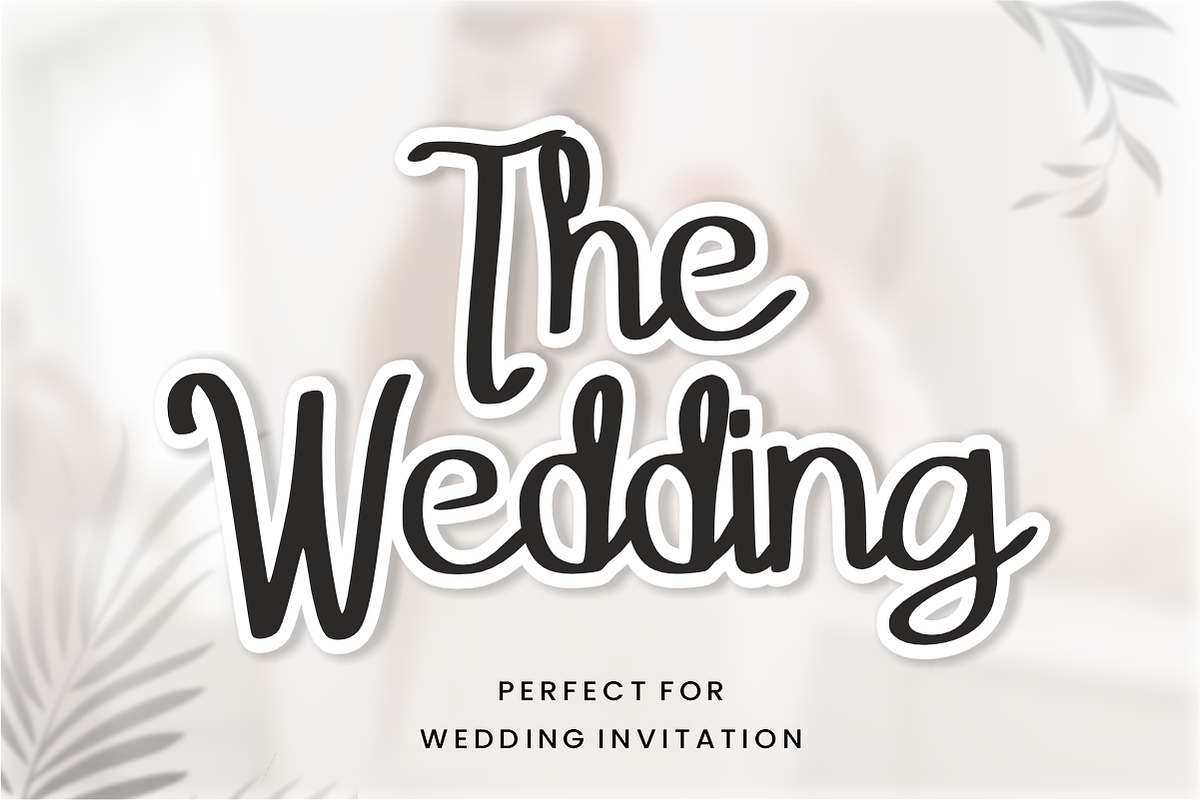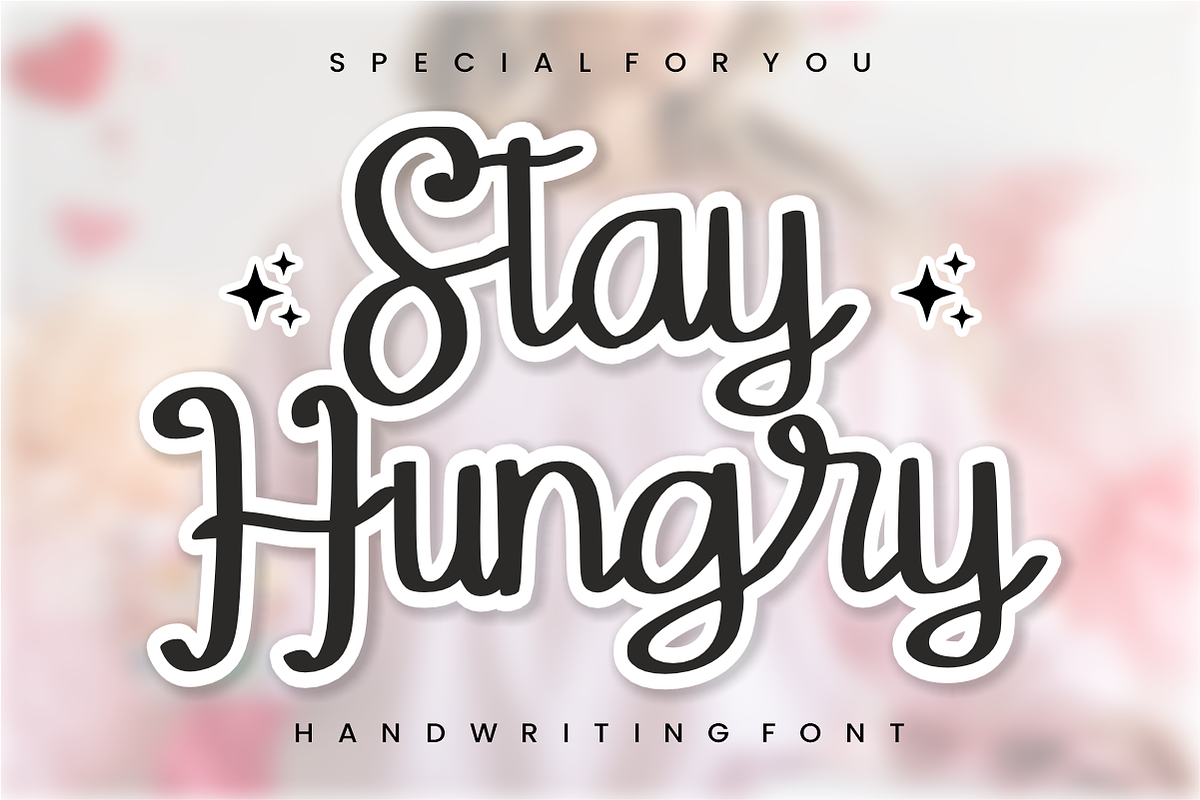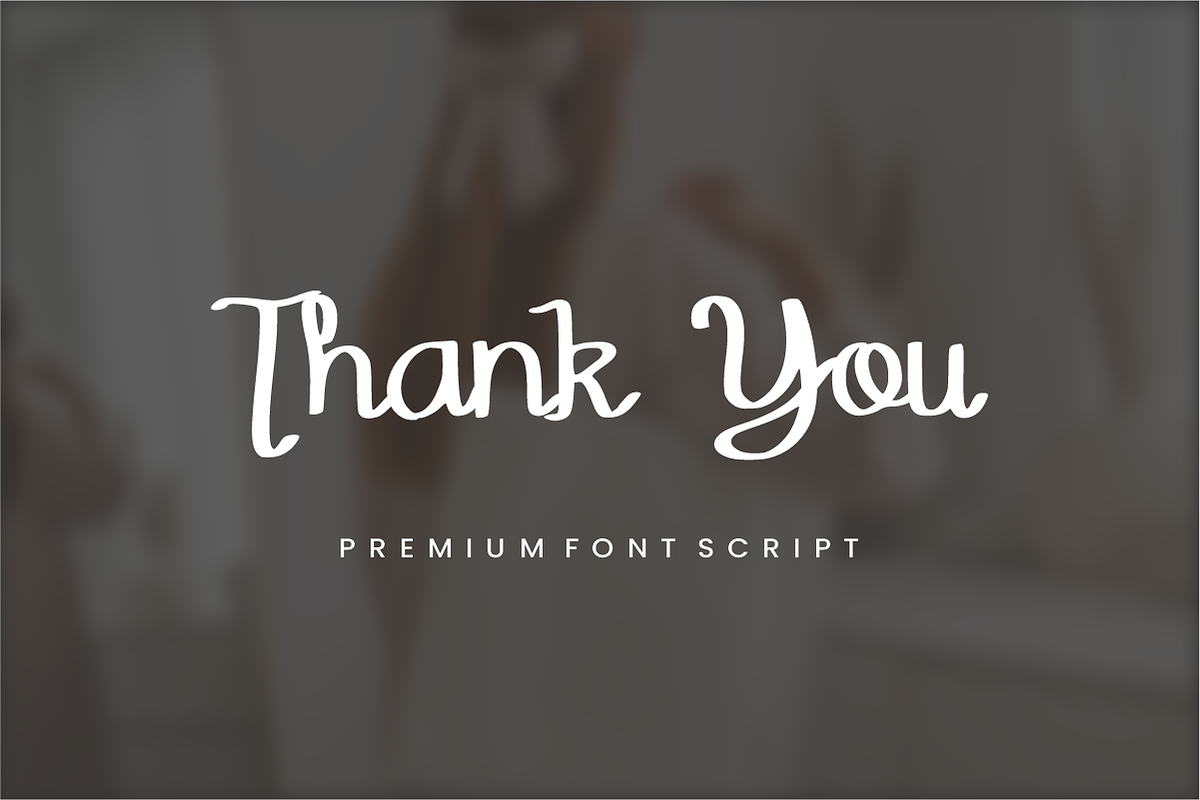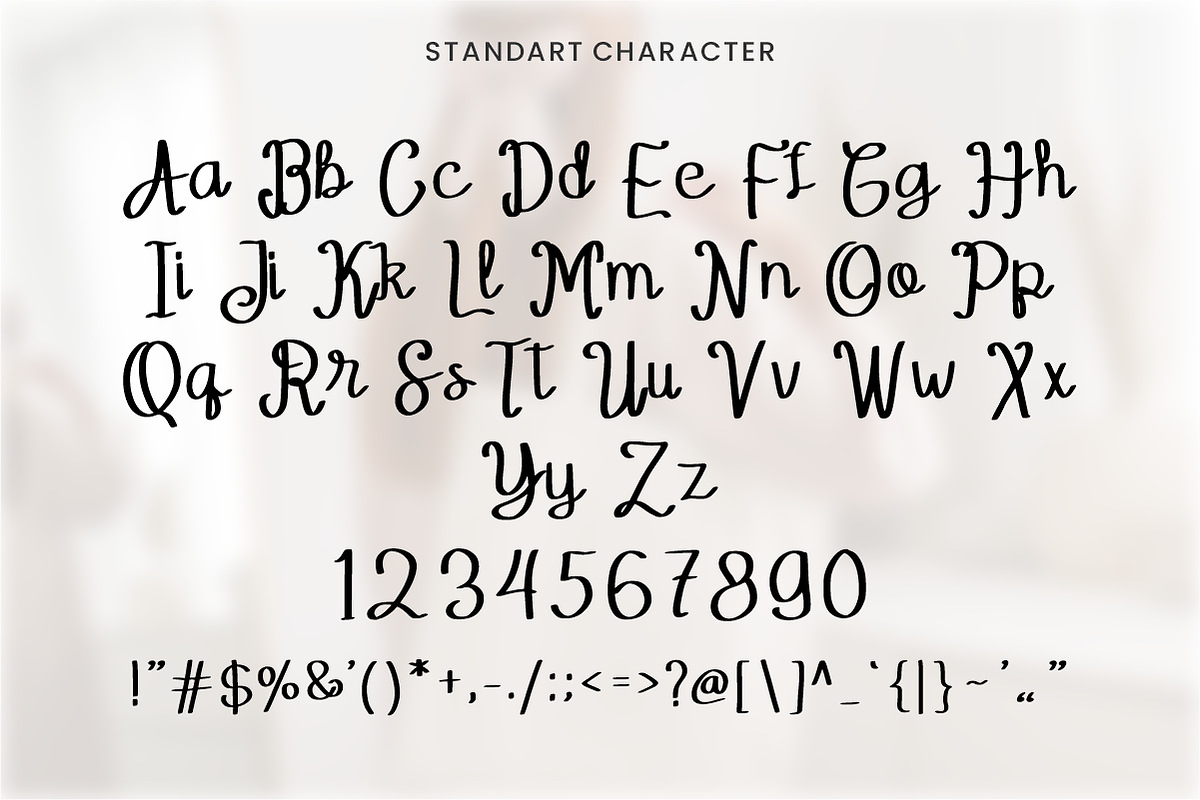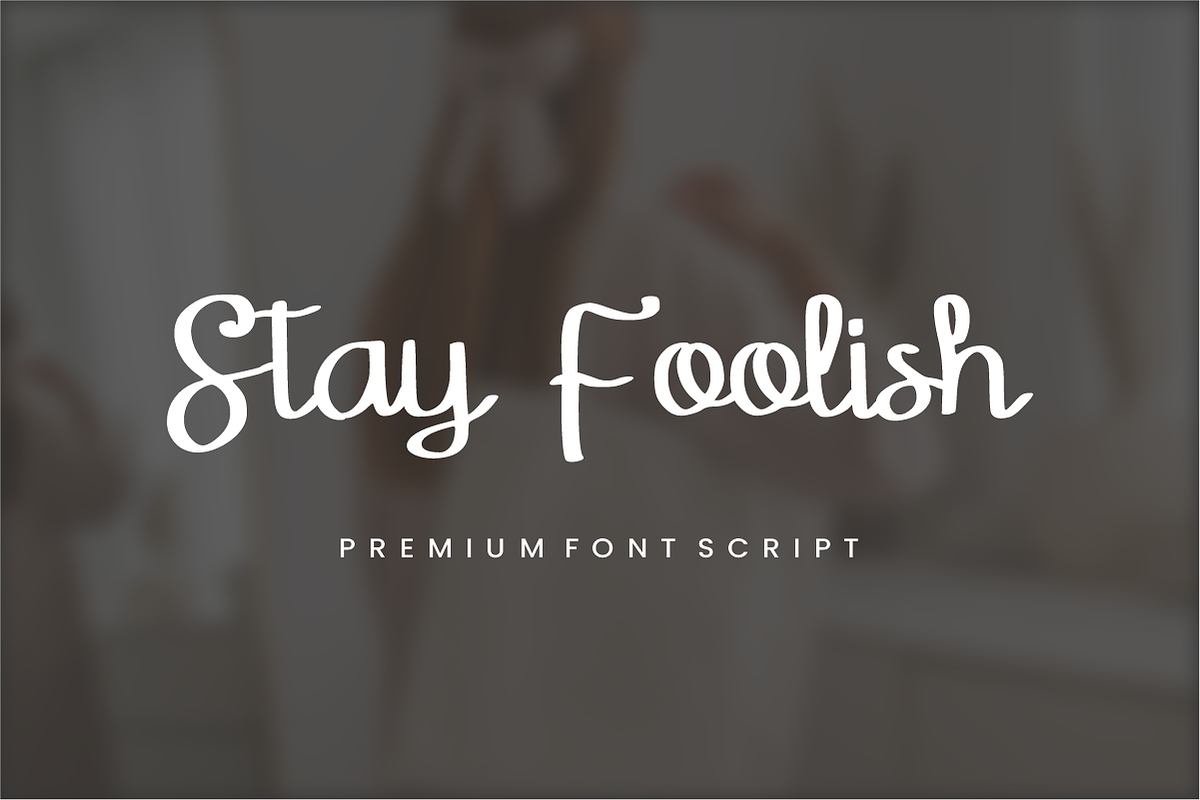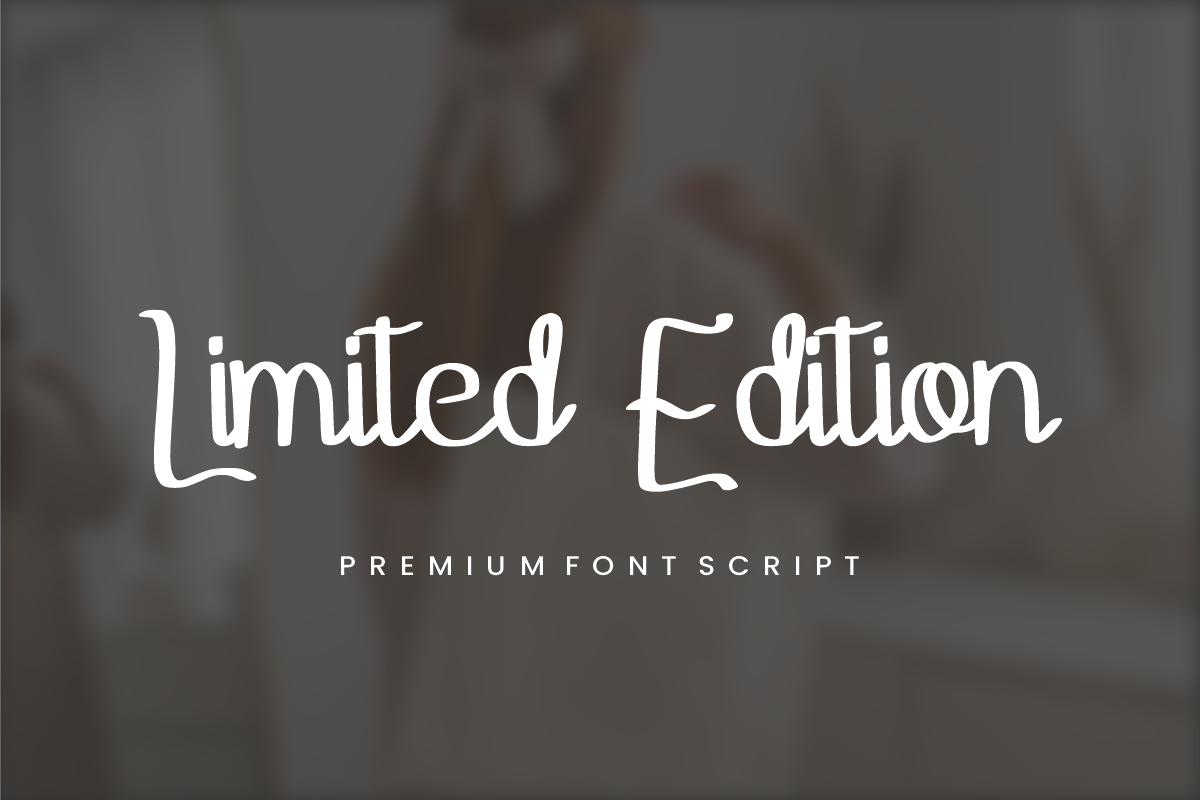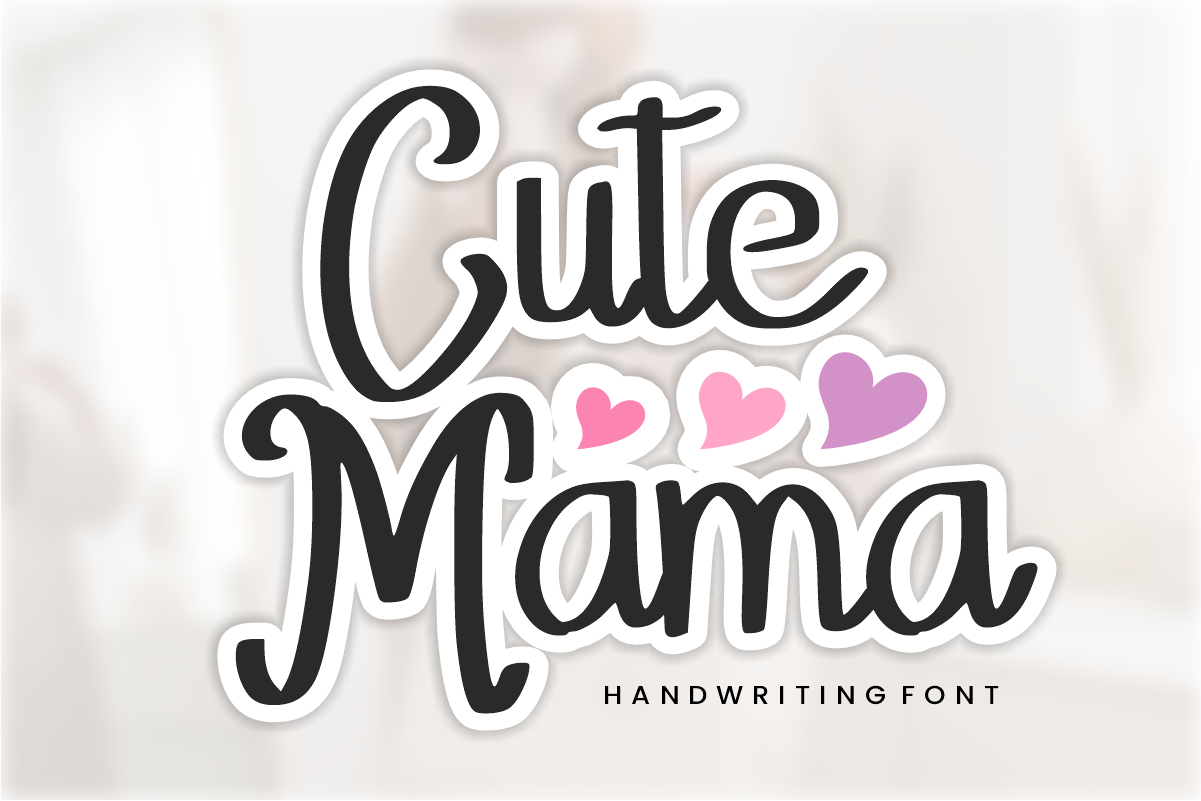
Cute Mama - Handwriting Font
🌸 Cute Mama – Sweet & Modern Handwriting Font 💕 Style your love with a personal touch! ✨
Cute Mama is a delightful and modern handwriting font designed to bring warmth and elegance to your creative projects. With its smooth, flowing strokes and friendly feel, this font perfectly captures a stylish yet heartfelt aesthetic. It is the ultimate choice for crafters and designers looking for a "paws-itively" sweet look that remains clean and easy to read.
Whether you're creating personalized gifts, chic branding, or sentimental greeting cards, Cute Mama adds a lovely handmade charm to every design.
✨ What’s Included: Charming Style: Elegant, modern handwriting with a soft flow.
Versatile Use: Perfect for physical crafts and digital designs alike.
🎨 Perfect For: 💌 Mother’s Day & Family-Themed Cards
💍 Wedding Invitations & Personal Stationery
👕 Custom T-shirts, Mugs, & Apparel
💄 Beauty, Lifestyle, & Boutique Branding
📱 Elegant Social Media Quotes & Blog Headers
🖍️ Cricut, Silhouette, & DIY Craft Projects